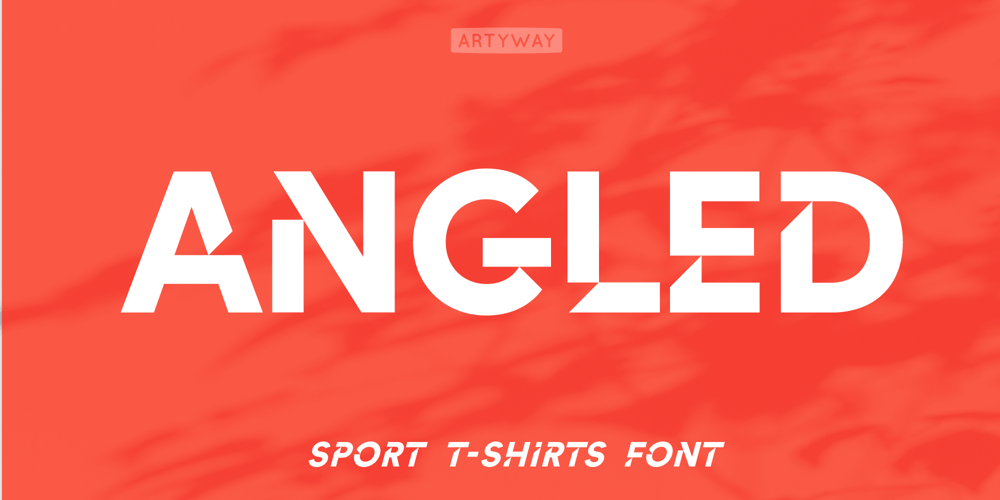
Angled Font Family was designed by Yehor Lisnyi and published by Artyway. Angled contains 2 styles and family package options. Proudly present this bold font inspired by current trends in sport headline typography or digital product.Beautiful geometric cut outs to perfection.Feel free to use it on futuristic or gaming designs, gui and hud or t-shirts design.